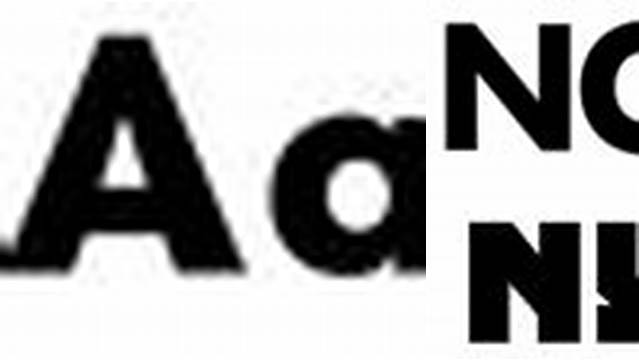
Hey guys! Are you on the hunt for a font that screams boldness and modernity? Look no further! Today, we're diving deep into the world of Hauslan Extra Bold Font, a typeface that’s not only visually stunning but also available for free! Whether you're a seasoned designer or just starting out, understanding how to leverage this font can seriously elevate your projects. So, let's get started and explore everything you need to know about Hauslan Extra Bold Font.
What Makes Hauslan Extra Bold Font Special?
Hauslan Extra Bold Font isn't just another typeface; it’s a statement. Its robust design commands attention, making it perfect for headlines, posters, and branding materials where you need to make a strong impact. The clean lines and balanced letterforms ensure readability, even at larger sizes. This font exudes confidence and contemporary flair, making it a favorite among designers aiming for a modern aesthetic. Seriously, you guys will love this.
Hauslan Extra Bold vs. Other Bold Fonts
When you compare Hauslan Extra Bold Font with other bold fonts, it stands out due to its unique blend of sharpness and smooth curves. While many bold fonts can appear clunky or overwhelming, Hauslan Extra Bold Font maintains a level of sophistication. Its balanced weight distribution ensures that each character is legible and visually appealing. This makes it a superior choice for projects where clarity and impact are equally important.
Using Hauslan Extra Bold in Graphic Design
In graphic design, Hauslan Extra Bold Font shines when used strategically. For headlines, its boldness grabs the reader's attention immediately. In logos, it conveys strength and reliability. When used sparingly in body text, it can highlight key points and add visual interest. Experiment with different sizes and weights to see how Hauslan Extra Bold Font can transform your designs. A little creativity goes a long way!
Hauslan Extra Bold for Branding
For branding purposes, Hauslan Extra Bold Font is a fantastic choice, especially if your brand wants to project a strong and modern image. Its confident appearance helps create a memorable brand identity. Use it consistently across your marketing materials—from your website to your business cards—to build a cohesive brand presence. Plus, its versatility means it can adapt to various industries and styles.
Web Design Applications of Hauslan Extra Bold
In web design, Hauslan Extra Bold Font can significantly enhance the user experience. Use it for headings and call-to-action buttons to draw attention and guide users through your site. Ensure that you optimize the font for web use to maintain fast loading times and readability across different devices. A well-placed Hauslan Extra Bold Font can make your website more engaging and professional.
Pairing Hauslan Extra Bold with Other Fonts
Pairing Hauslan Extra Bold Font with the right complementary font is crucial for creating a balanced design. Consider pairing it with a clean, sans-serif font for body text to ensure readability. Alternatively, a classic serif font can add a touch of elegance and contrast. Experiment with different combinations to find what works best for your specific project. Remember, harmony is key!
Hauslan Extra Bold in Print Media
When it comes to print media, Hauslan Extra Bold Font performs exceptionally well. Its sharp lines and clear letterforms ensure that your text looks crisp and professional, whether you're printing brochures, posters, or business cards. Pay attention to the kerning and leading to optimize readability, especially in longer blocks of text. Print is still super relevant, guys!
Hauslan Extra Bold Font: Alternatives
Okay, so what if Hauslan Extra Bold Font isn't exactly what you're looking for? No stress! There are tons of fantastic alternatives out there. Fonts like Montserrat Extra Bold, Bebas Neue, and Open Sans Extra Bold offer similar vibes. Each has its own unique flavor, so play around and see which one fits your project best!
Hauslan Extra Bold: Typography Best Practices
Following typography best practices is essential for creating effective and visually appealing designs. Pay attention to things like hierarchy, contrast, and readability. Use Hauslan Extra Bold Font strategically to highlight key elements and guide the reader's eye. Happy designing, guys!